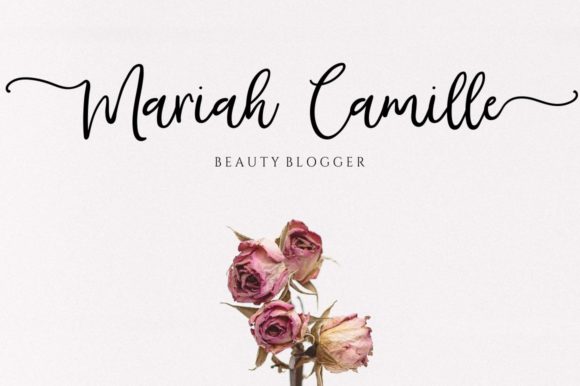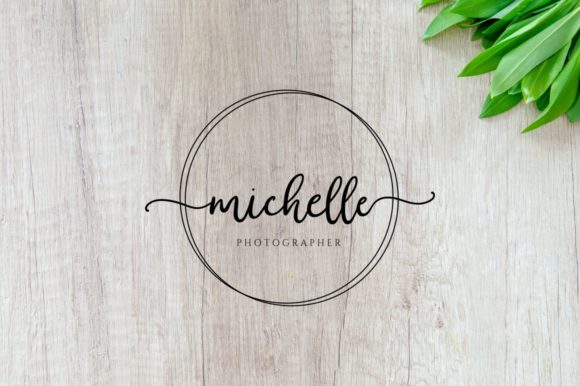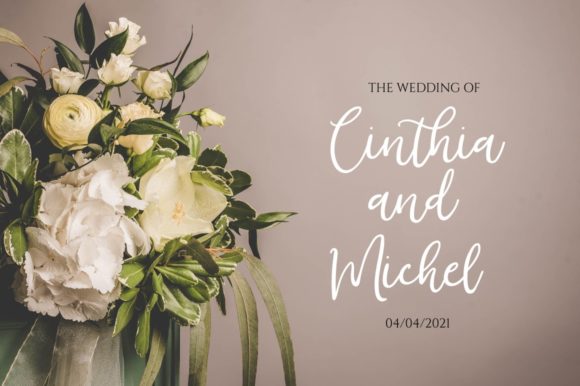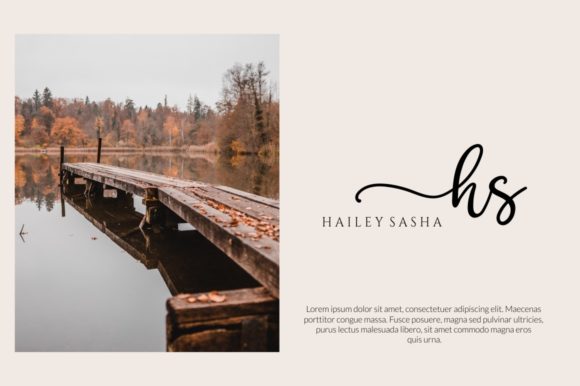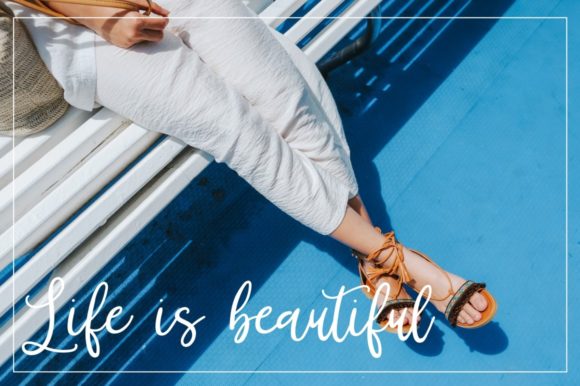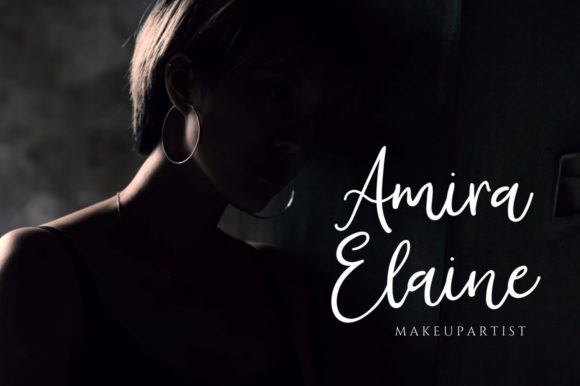
Introduction to Mystic Angel Font Font
Fonts play a crucial role in design, and the Mystic Angel Font font is a typeface that brings both character and versatility to any project. Whether you’re working on a branding project, a website, or a print design, the Mystic Angel Font font offers a unique style that can elevate your work.
Mystic Angel is a stylish and delicate script font.
It has a clean, thin and smooth vibe and it will be a hit for any design that you want to add it to This font is PUA encoded which means you can access all of the glyphs and swashes with ease.
Key Features of Mystic Angel Font Font
Why Choose Mystic Angel Font Font?
The Mystic Angel Font font is more than just a typeface – it’s a design tool that helps you communicate your message with style and clarity. Its unique character set and versatile design make it suitable for a wide range of applications, from elegant invitations to bold headlines.
With its carefully crafted letterforms and balanced proportions, the Mystic Angel Font font ensures readability and visual appeal across all mediums.
What makes Mystic Angel Font font special?
The Mystic Angel Font font stands out with its unique design, exceptional readability, and versatility across various design applications.